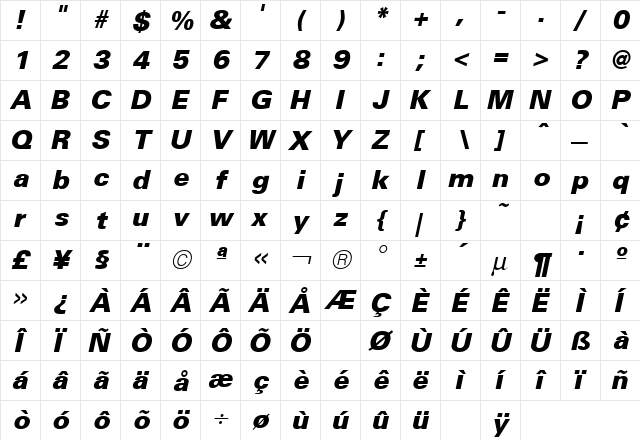
Uniform Black Italic
Design Context for Uniform Black Typeface
Uniform Black takes a measured approach to typography — its balanced proportions and neutral character make it a reliable workhorse for both digital and print work. The slanted form adds forward momentum and visual energy.